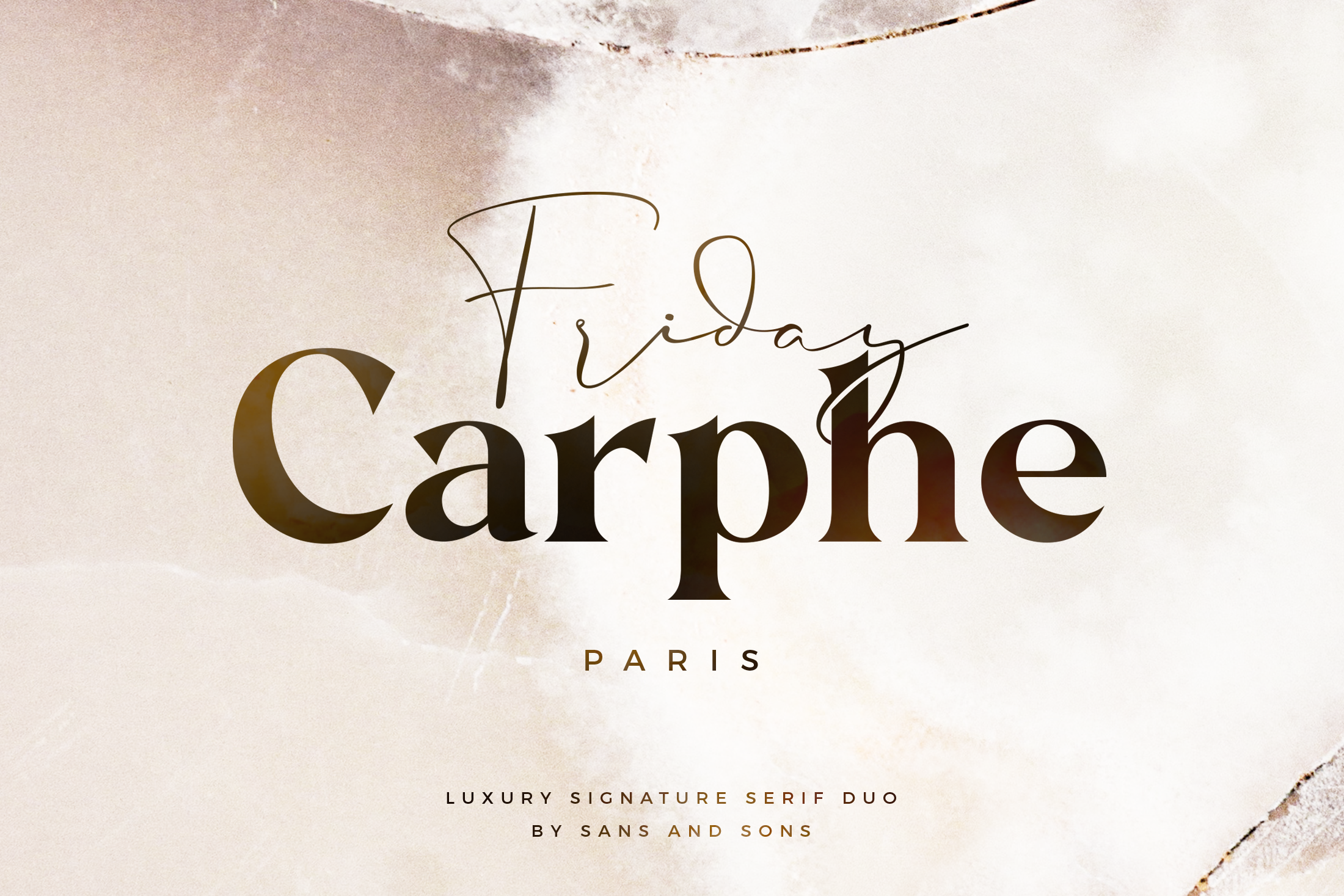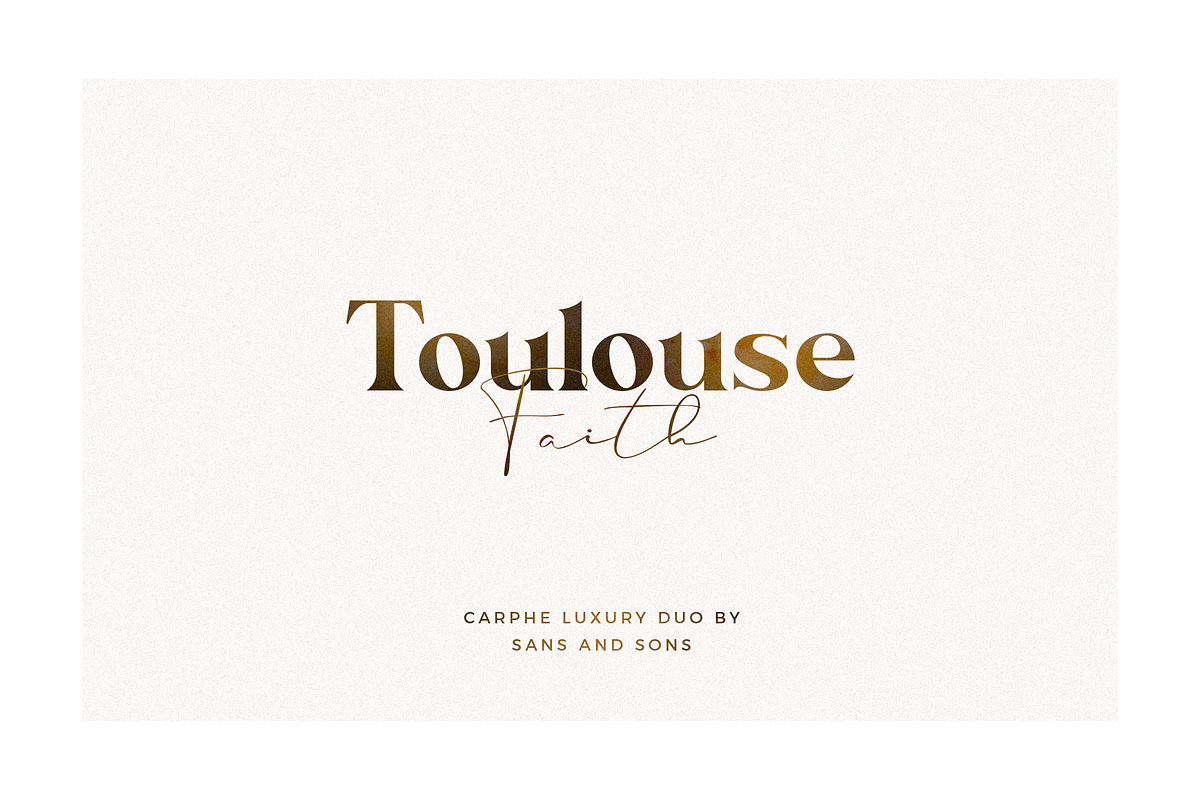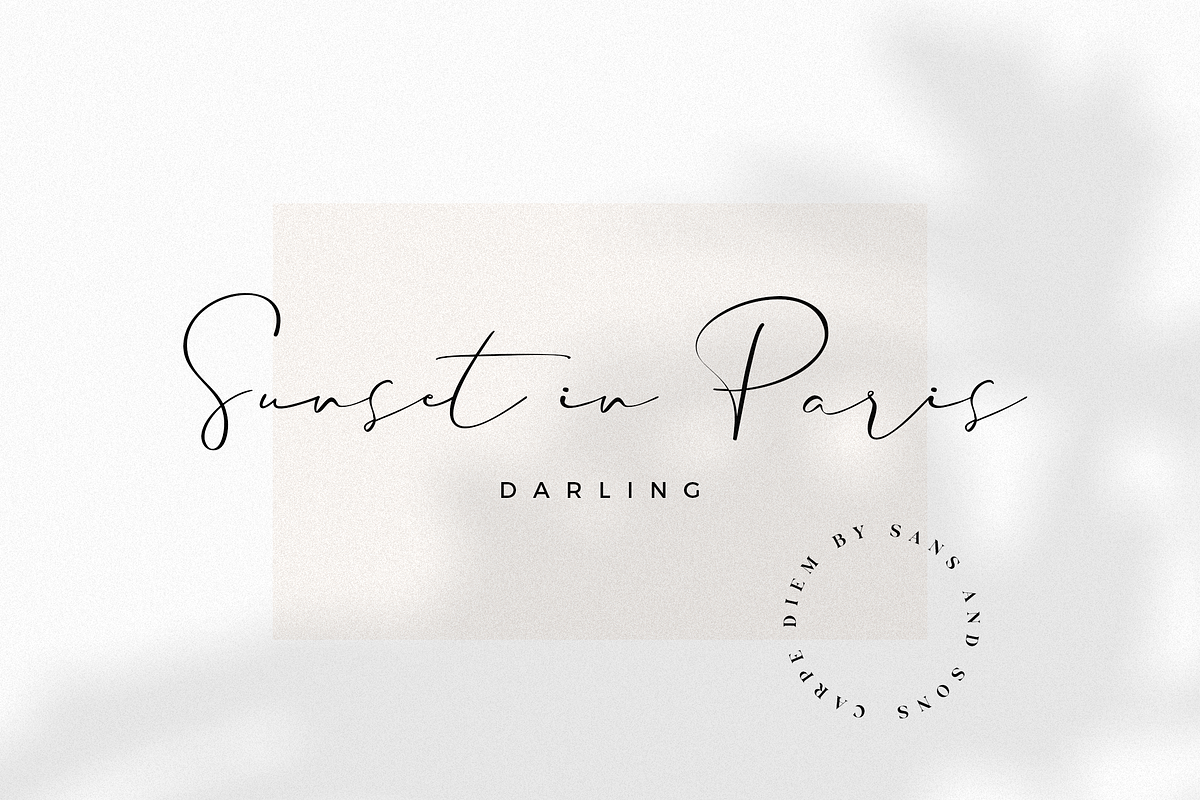
Carphe | Modern Luxury Font
Carphe - Luxury Signature Serif Duo by Sans and Sons
introducing our new "Carphe" font duo with Modern Luxury Style this is perfect for branding, logos, invitation, masterheads and more.